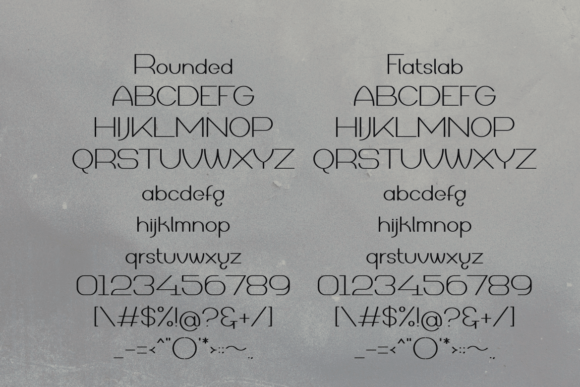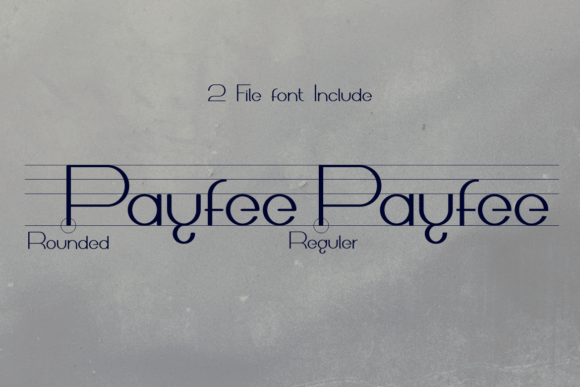
Introduction to Payfee Font
Payfee is a phenomenal sans-serif font that can help you create magical and spectacular designs.
Choosing the right font for your work will always ensure extraordinary results .
Key Features of Payfee Font
Why Choose Payfee Font?
Payfee Font offers exceptional quality and versatility, making it a valuable addition to your design toolkit. Whether you’re creating for personal projects or commercial use, Payfee Font delivers professional results.